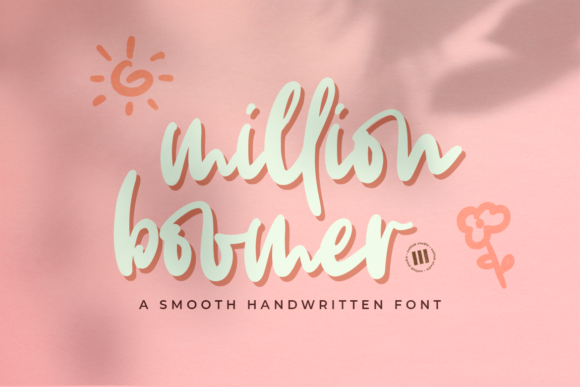
**Introducing Million Boomer: The Font That Will Captivate Your Creativity**
Unleash your imagination with Million Boomer, an enchanting handwritten font that will transform your designs into masterpieces. Inspired by the timeless elegance of calligraphy, this font exudes a captivating personality that will make your words dance off the page.
**A Versatile Gem for Crafty Creations**
Whether you're crafting elegant letterheads, eye-catching titles, or personalized stationery, Million Boomer's versatility knows no bounds. Its graceful curves and dynamic strokes bring a touch of whimsy to any project, adding a layer of sophistication that will leave a lasting impression.
**Effortless Access to Glyphs and Swashes**
**A Font That Speaks to Your Heart**
Million Boomer is not just a font; it's a creative companion that will spark your imagination and ignite your passion for design. Its delicate strokes and flowing lines invite you to express your emotions and create designs that resonate with your soul.
**The Perfect Choice for Vinyl Cutting**
For crafters who love the art of vinyl cutting, Million Boomer is an absolute dream. Its smooth, legible lines ensure precise and beautiful results, making it the ideal choice for creating stunning decals, signs, and other vinyl creations that will add a splash of style to any space.